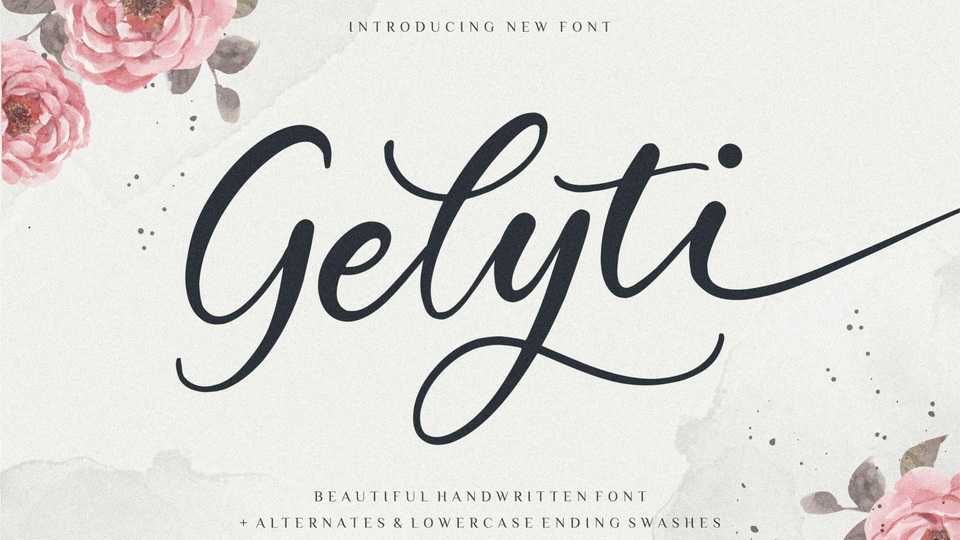
Download Gelyti font, a beautifully flowing handwritten typeface. Gelyti is perfect for branding, magazine, social media, wedding, or just used to express quotes above the background.
Designer: Balpirick Studio